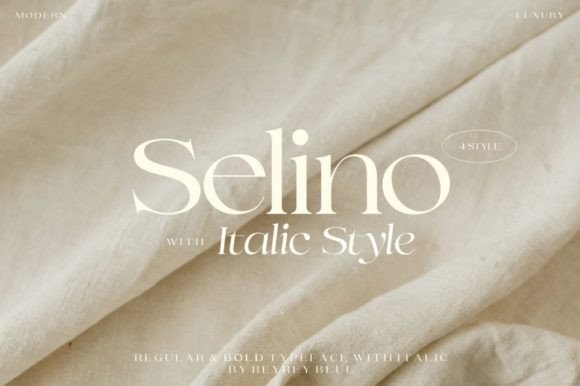
Introducing Selino Font, the epitome of sophistication and charm in the world of typography. Crafted by the talented Reyrey Blue, this exquisite serif font is specifically tailored to cater to all your luxury, elegant, and feminine projects. Prepare to be captivated by its fashionable touch and modern allure.
Selino Font is a true masterpiece, carefully designed to elevate your creations to new heights. Whether you're designing wedding signs, invitations, or any other glamorous project, this font will effortlessly add a touch of elegance and class. Its graceful curves and delicate serifs create a harmonious balance, making it the perfect choice for those seeking refined beauty.
Immerse yourself in the world of chic designs as Selino Font effortlessly brings your visions to life. With its versatility and adaptability, this font is a must-have for any creative endeavor. Let your imagination soar as you explore the endless possibilities this font offers.
But it's not just about aesthetics - Selino Font is also incredibly user-friendly. Its seamless legibility ensures that your message is conveyed effortlessly, capturing the attention of your audience and leaving a lasting impression. Get ready to mesmerize your viewers with its eye-catching appeal.
Embrace the power of Selino Font and watch as your designs come alive with a touch of sophistication. Elevate your projects to a whole new level and indulge in the luxurious experience it brings. With Selino Font, creativity knows no bounds.
Don't settle for ordinary when you can have extraordinary. Choose Selino Font today and let your imagination run wild. It's time to make a statement with your designs and leave a lasting impression. Get ready to embark on a journey of elegance and creativity.